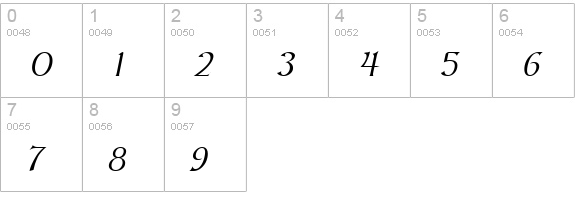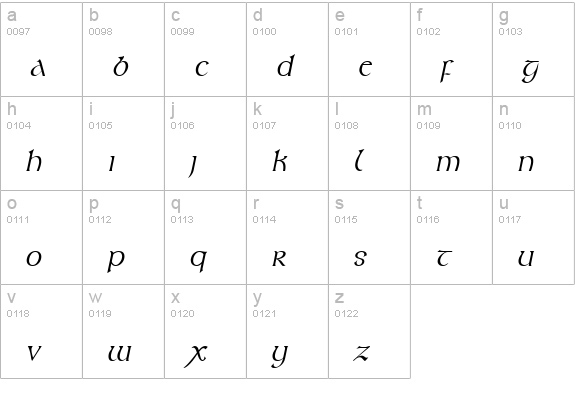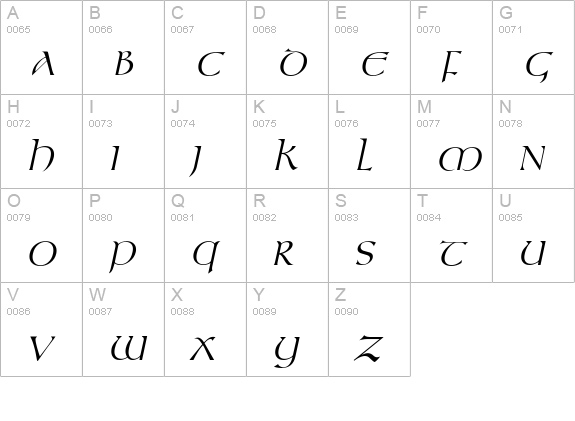
Kelt Italic is a distinctive, italic variant in the Kelt typeface family \xE2\x80\x94 well suited to design and typography projects.
Kelt Italic font is a stunning display font that exudes elegance and sophistication. Its sleek and slender letterforms are delicately slanted, giving it a sense of movement and grace. This font is perfect for adding a touch of class to any design project, be it a logo, headline, or invitation. With its smooth curves and distinctive italicized style, Kelt Italic font captures attention effortlessly. It commands a presence that is both refined and bold, making it a versatile choice for a wide range of creative applications. Whether you're designing for a high-end fashion brand, a luxurious event, or an upscale publication, this font will elevate your design to new heights. What sets Kelt Italic font apart is not just its aesthetic appeal, but also the fact that it is freely available to download. FontsMarket.com, a reputable online platform for font enthusiasts, offers this exquisite font at no cost. This means that you can bring a touch of sophistication to your designs without breaking the bank. Downloading and installing Kelt Italic font from FontsMarket.com is a breeze. Simply navigate to the website, locate the font, and click the download button. The font file will be instantly available for use in your favorite design software. FontsMarket.com ensures a seamless and hassle-free experience, making it easier than ever to access and use high-quality fonts like Kelt Italic. Embrace the beauty and elegance of Kelt Italic font in your next design project. Its timeless appeal and freely available nature make it a valuable asset for any designer or creative professional. Stand out from the crowd and make a lasting impression with this remarkable font. Download Kelt Italic font today from FontsMarket.com and elevate your designs to new levels of sophistication and style.